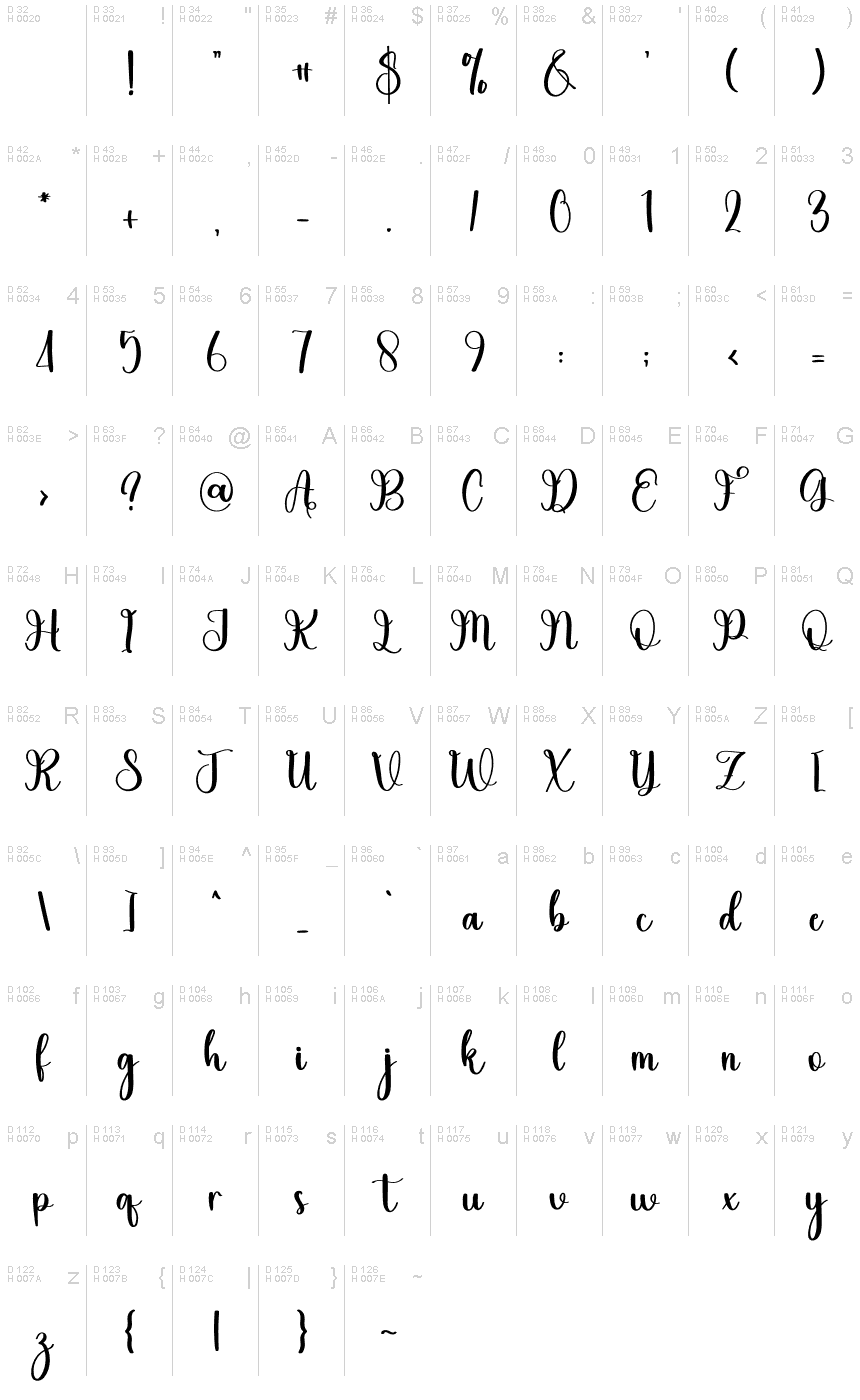
Towel
Towel, the captivating calligraphy font by Inermedia Studio, adds elegance and sophistication to any project. With its graceful strokes and flowing curves, this font is perfect for wedding invitations, luxury brands, and high-end fashion editorials. The semi-bold typeface of Towel exudes confidence and versatility, making it suitable for logo designs and branding materials. Its unique combination of classic charm and modern appeal makes Towel an ideal choice for elegant packaging, stylish blogs, or refined book covers. Elevate your designs with the timeless beauty of Towel font.